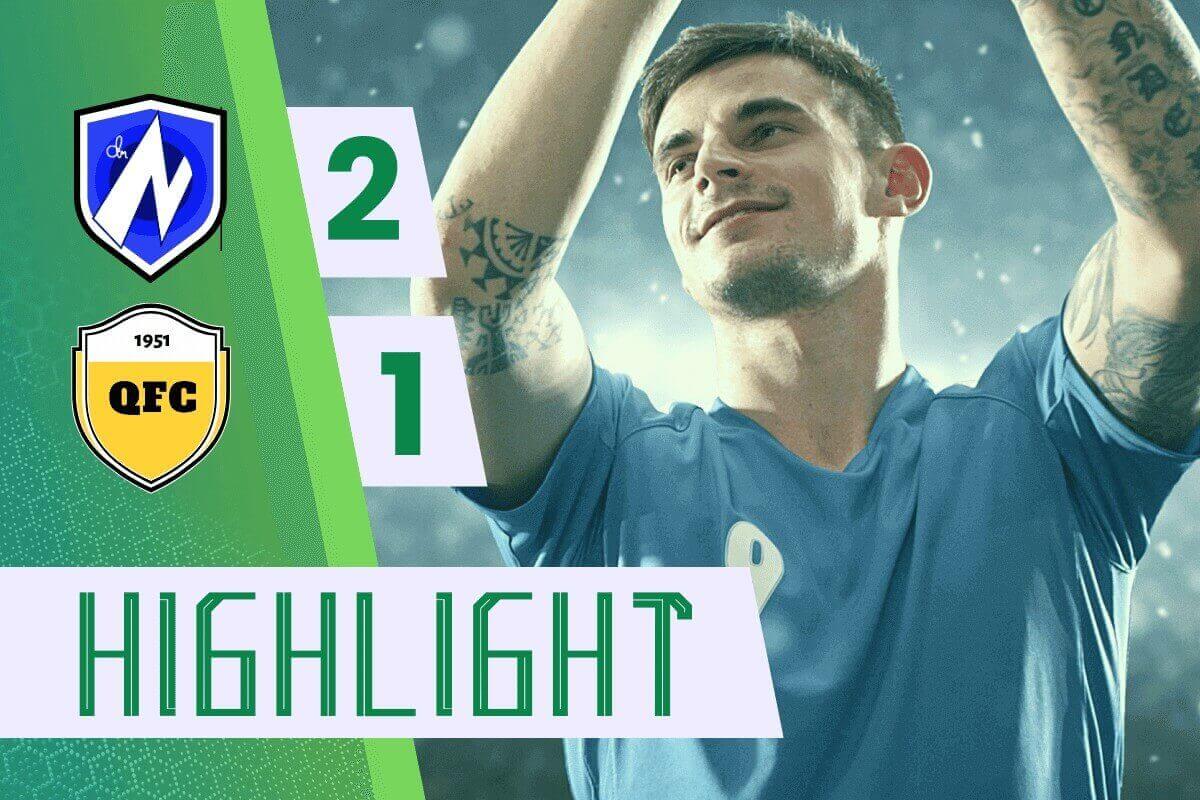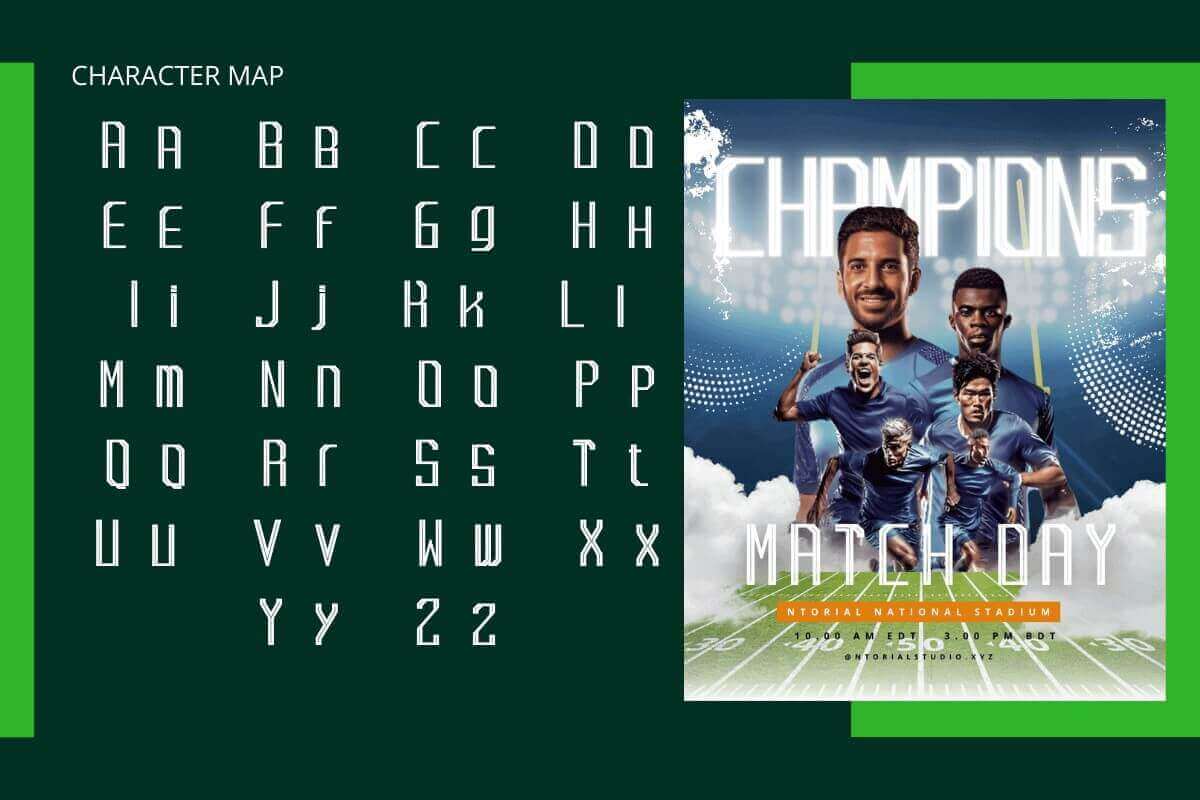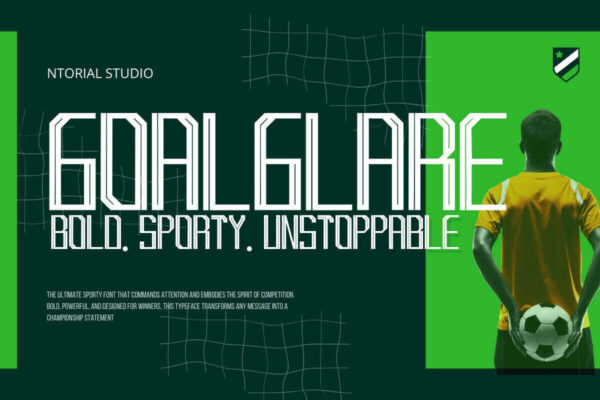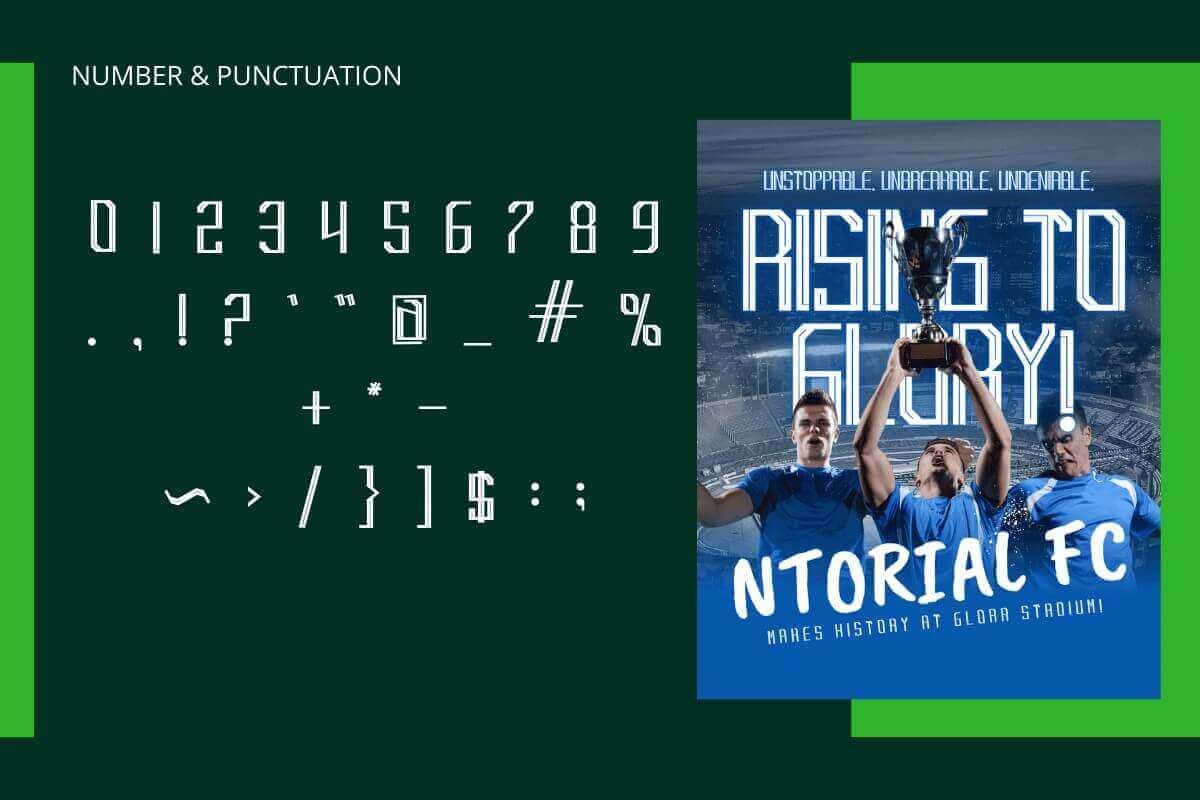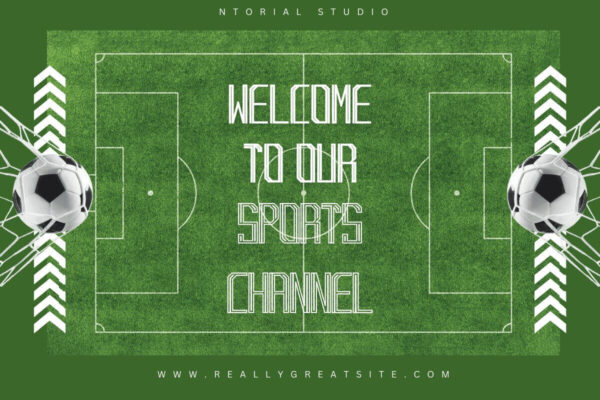
GOALGLARE strikes with the unstoppable force of a championship-winning goal. This bold, athletic display font captures the raw energy and competitive spirit that separates champions from spectators.
Built for victory, GOALGLARE delivers maximum impact through its robust, block-style construction and razor-sharp geometric precision. Each letterform commands the field with unwavering confidence, featuring clean angles and powerful proportions that mirror the determination of elite athletes. The font's distinctive condensed styling ensures your message cuts through the noise like a perfectly placed shot.
GOALGLARE transforms ordinary text into a winning statement. Whether announcing match results, celebrating victories, or building sports brands that demand respect, this typeface embodies the relentless pursuit of excellence that defines true competitors.
GOALGLARE includes complete uppercase and lowercase alphabets, full numerical set, and essential punctuation, for global sporting events.
• Complete character map with uppercase and lowercase
• Numbers 0-9 and essential punctuation marks
Perfect for: Sports logos, team jerseys, match day graphics, fitness branding, sports broadcasts, athletic wear, championship banners, tournament posters, and any project that demands athletic authority.
Step onto the field with GOALGLARE – where bold meets unstoppable, and every letter scores.
Goalglare Sporty Font